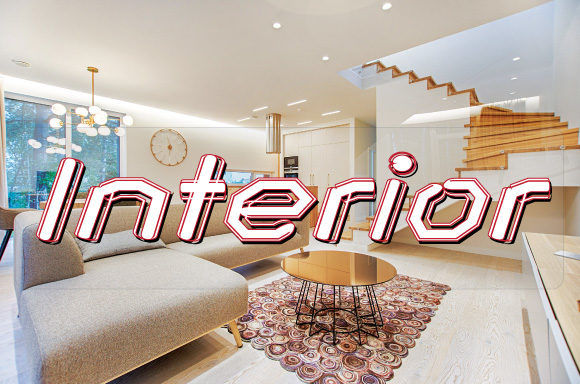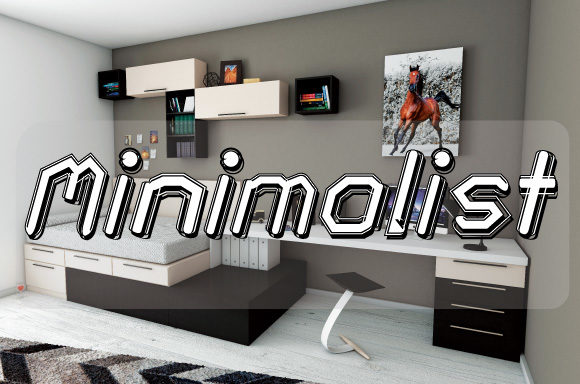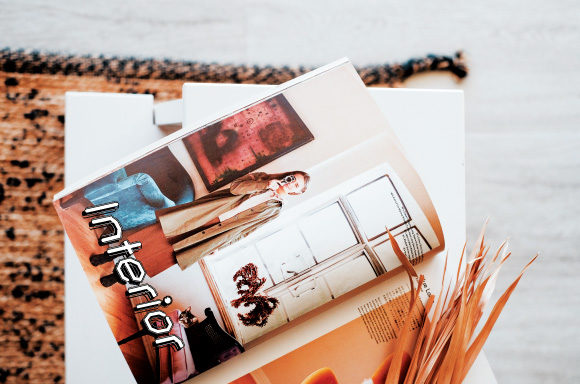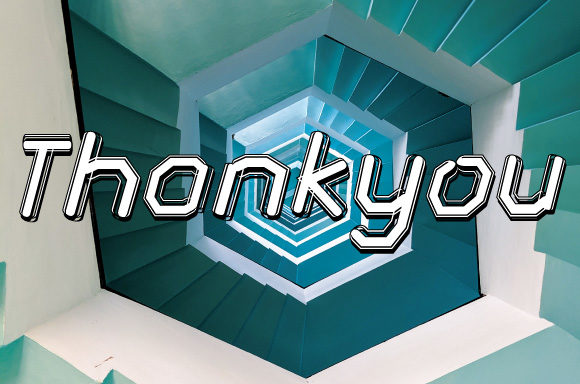
Gallope Font: Elevate Your Design Projects with a Unique Outlined Display Font
Are you looking for a font that can add a touch of elegance and sophistication to your design projects? Look no further than Gallope Font, a unique outlined display font that is sure to take your branding, headings, logos, labels, and more to the highest level. In this article, we’ll take a closer look at Gallope Font, its features, and how it can be used to elevate your design projects.
What is Gallope Font?
Gallope Font is a modern, outlined display font that is designed to make a statement. Its unique outline style gives it a distinctive look that sets it apart from other fonts. The font is highly versatile and can be used for a wide range of design projects, from branding and advertising to packaging and web design.
Key Features of Gallope Font
- Unique Outlined Style: Gallope Font features a distinctive outlined style that gives it a modern and sleek look.
- Highly Versatile: The font can be used for a wide range of design projects, including branding, headings, logos, labels, and more.
- Elegant and Sophisticated: Gallope Font adds a touch of elegance and sophistication to any design project.
- Easy to Read: Despite its outlined style, Gallope Font is easy to read, making it perfect for use in headings and titles.
How to Use Gallope Font in Your Design Projects
Gallope Font can be used in a variety of design projects, including:
Branding
Gallope Font is perfect for use in branding projects, such as logos, business cards, and letterheads. Its unique outlined style gives it a distinctive look that can help to set your brand apart from the competition.
Headings and Titles
Gallope Font is ideal for use in headings and titles, where its elegant and sophisticated style can add a touch of class to your design.
Logos and Icons
Gallope Font can be used to create unique and eye-catching logos and icons that are sure to grab attention.
Labels and Packaging
Gallope Font is also perfect for use in labels and packaging, where its easy-to-read style can help to communicate important information to customers.
Tips for Using Gallope Font Effectively
- Use it sparingly: Gallope Font is a bold and eye-catching font, so use it sparingly to avoid overwhelming your design.
- Pair it with other fonts: Gallope Font can be paired with other fonts to create a unique and interesting contrast.
- Experiment with colors: Gallope Font looks great in a variety of colors, so don’t be afraid to experiment and find the perfect color for your design.
Gallope Font is a unique and versatile outlined display font that is sure to elevate your design projects to the highest level. Its elegant and sophisticated style makes it perfect for use in branding, headings, logos, labels, and more. With its easy-to-read style and highly versatile design, Gallope Font is a must-have for any designer or craft looking to add a touch of class to their work.